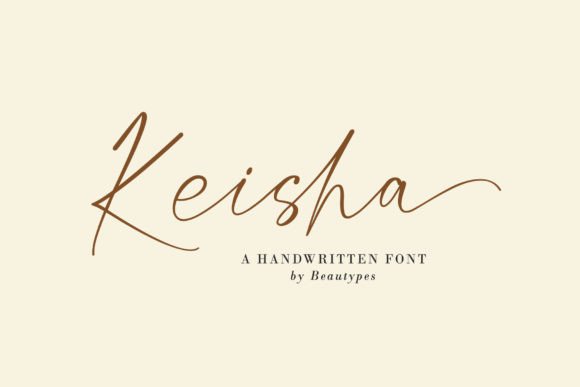
Looking for the perfect script font that will take your designs to the next level? Look no further than Keisha Font! Created by Beautypes, Keisha is a delicate, elegant, and flowing handwritten font that will captivate your audience from the moment they lay eyes on it.
With its beautiful and well-balanced characters, Keisha Font is the best font for reading script. Its graceful curves and strokes add a touch of sophistication to any design, making it ideal for invitations, logos, branding, and more. Whether you're designing for a wedding, a fashion brand, or a luxury product, Keisha Font will effortlessly elevate your creative ideas and bring them to life.
One of the standout features of Keisha Font is its versatility. It seamlessly adapts to any design style, from modern and minimalistic to vintage and ornate. The varying baseline and smooth lines give your text a natural and authentic handwritten look, while the gorgeous glyphs and stunning alternates add a unique and personalized touch.